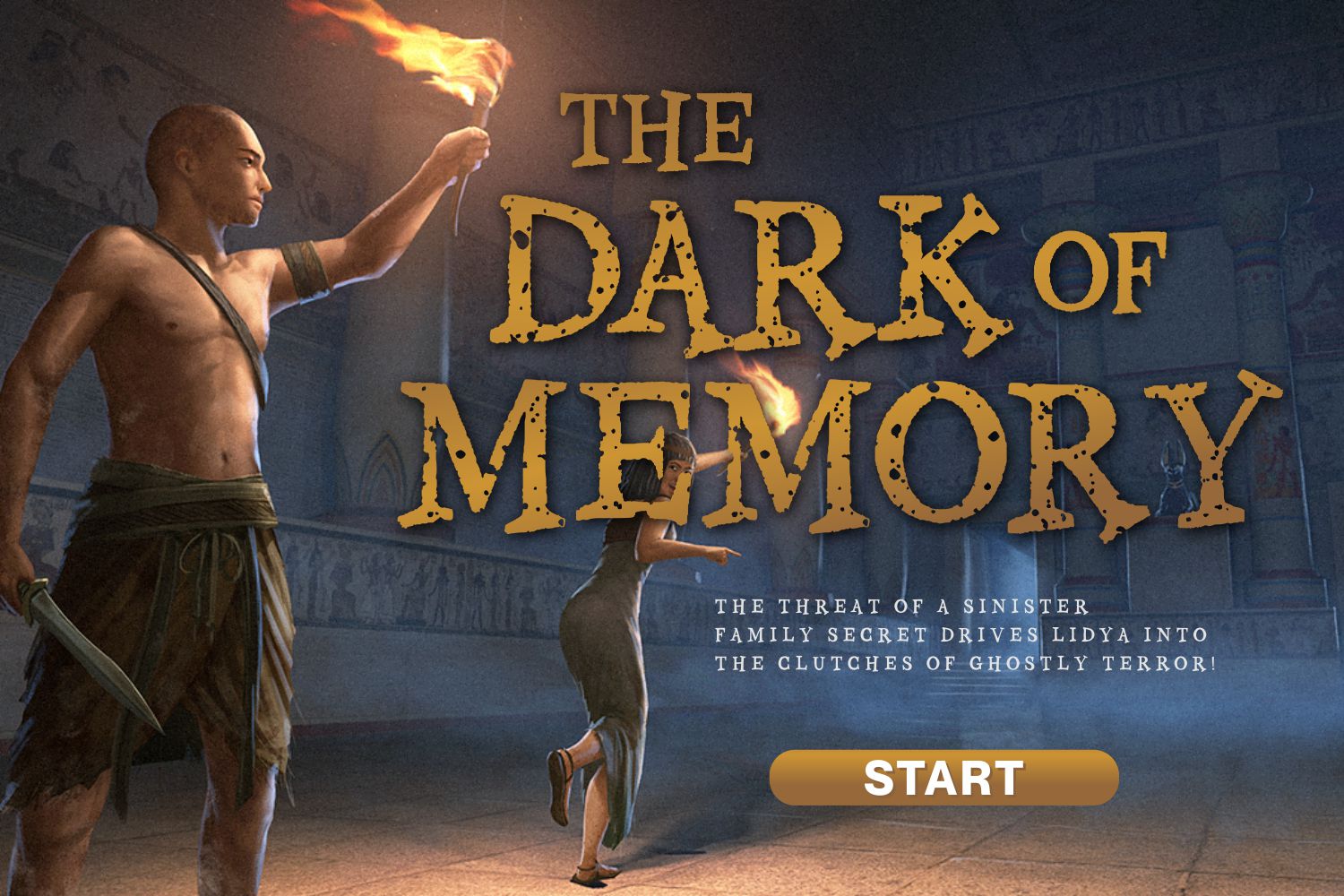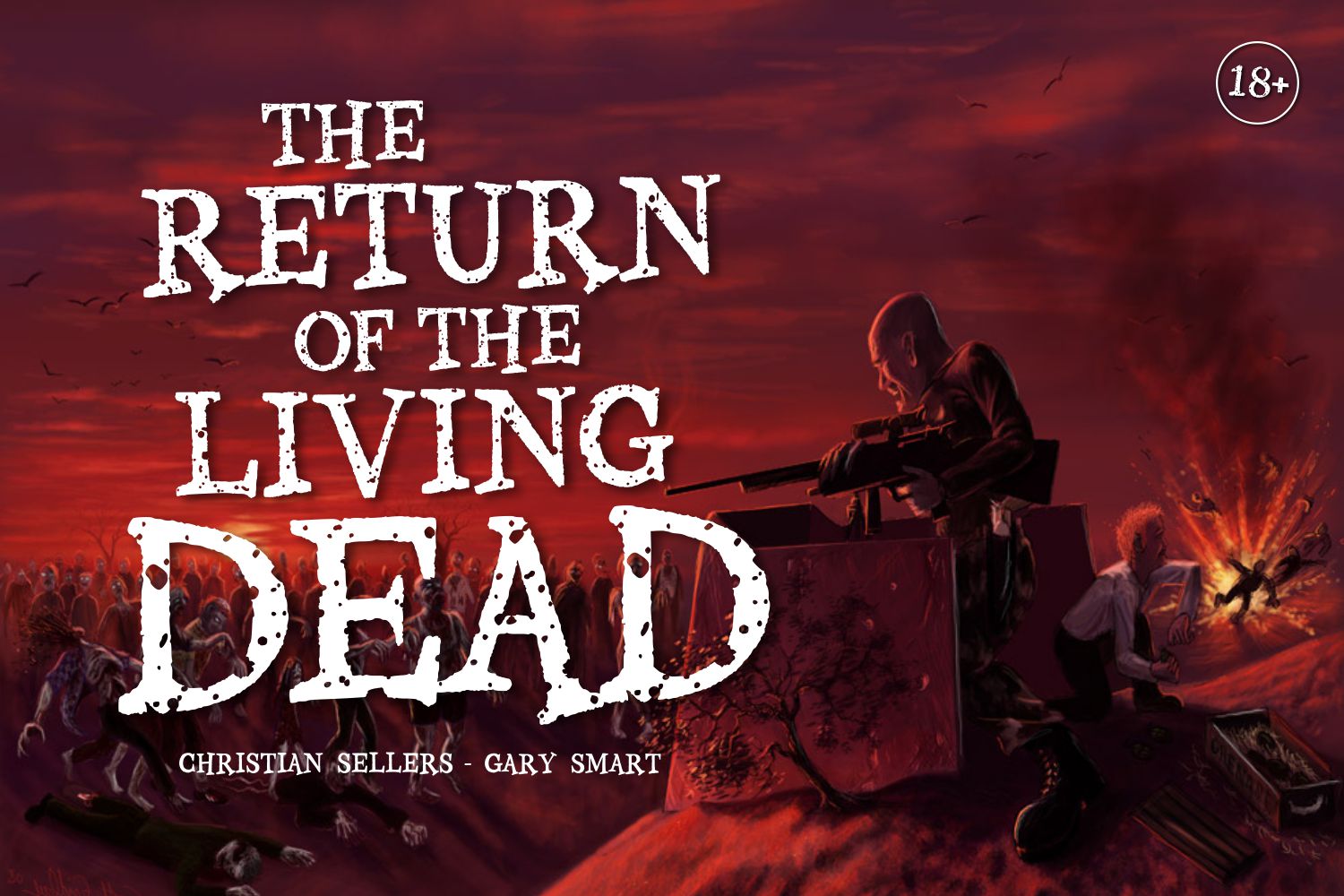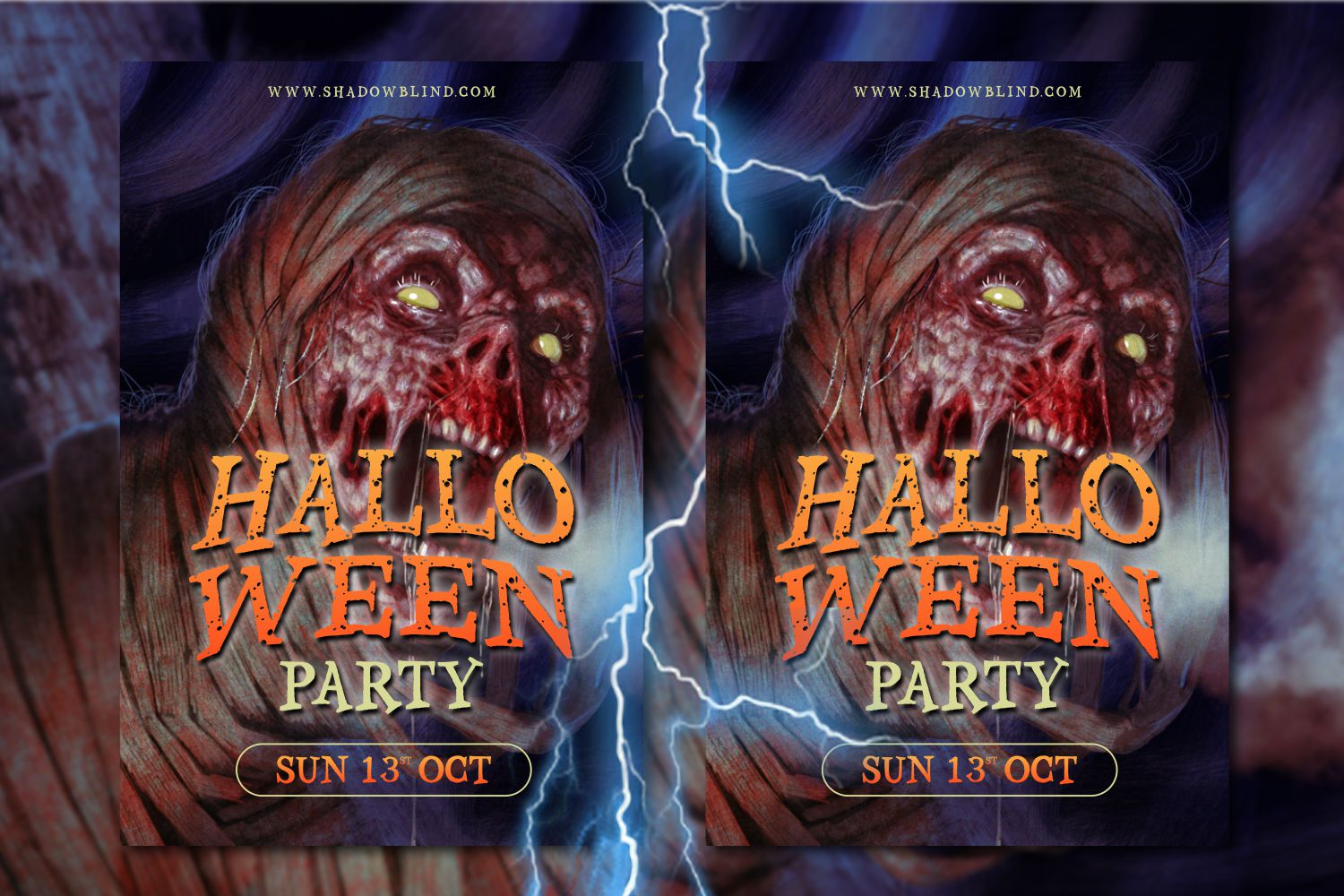
Gloomy Mummy Display Font
This is a rough, bold and thick lettered display font. This font is suitable for designs such as t-shirts, sportswear, logos, advertisements, clothing, and more.